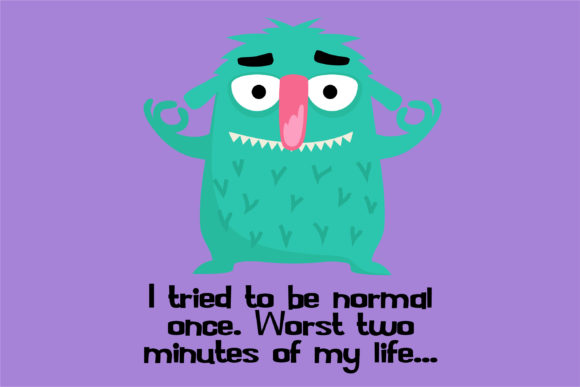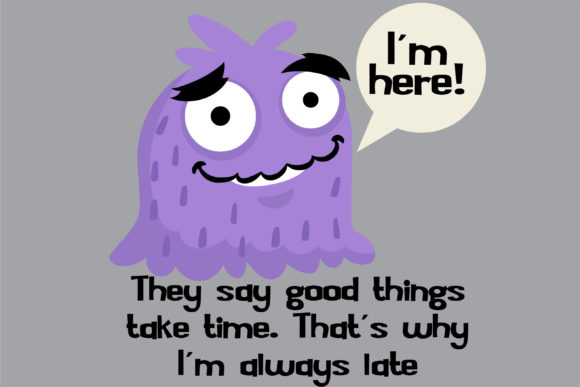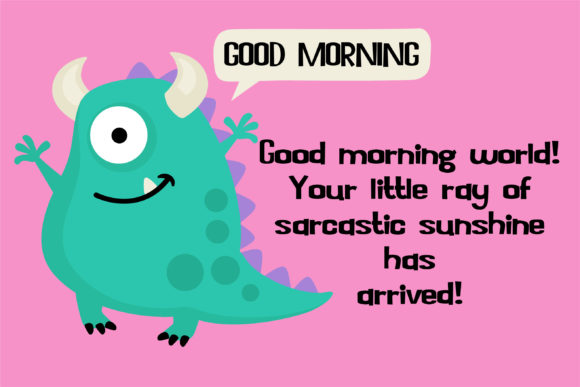
The Whimsical World of Bobotie Font: A Designer’s Delight
I’ll never forget the time I was working on a children’s book project, and my client asked me to create a logo that was “fun, playful, and eye-catching.” I scoured the internet for the perfect font, trying out various sans-serif options, but none seemed quite right. That was until I stumbled upon the Bobotie font. Its whimsical and retro charm instantly won me over, and I knew I had found the perfect fit for the project.
A Personal Review of Bobotie Font
So, what makes Bobotie font so special? Let’s dive into the good stuff! 😊
• ✨ Unique and playful design: Bobotie font has a distinct, retro flair that’s perfect for creating eye-catching logos, branding, and quotes.
• ✅ Highly versatile: This font works beautifully for children-themed designs, especially when paired with bright colors.
• 👍 Easy to read: Despite its playful nature, Bobotie font remains clear and legible, even at smaller sizes.
While Bobotie font is an excellent choice for many projects, there are a few things to keep in mind:
• ⚠️ Limited use for formal projects: Due to its playful nature, Bobotie font might not be the best fit for more formal or professional projects.
• 🤔 Glyph support: Some users have reported limited support for certain glyphs or special characters.
4. Experiment with OpenType features, such as stylistic alternates, to add more flair to your design.
4. Explore the font’s glyphs and OpenType features, such as ligatures and stylistic sets, to add more depth to your design.
The Story Behind Bobotie Font
According to the font’s creators, Bobotie font was inspired by the traditional South African dish, Bobotie, which is known for its rich flavors and eclectic mix of ingredients. The font’s designers aimed to capture the same playful, eclectic spirit in their typeface, making it perfect for creative projects that require a dash of whimsy.
Font Name Bobotie Font
Author Illustration Ink
What is the best use for Bobotie font? Bobotie font is perfect for children’s themed designs, logos, branding, and quotes that require a playful, whimsical touch.
Is Bobotie font suitable for formal projects? While Bobotie font is an excellent choice for many projects, it might not be the best fit for more formal or professional projects due to its playful nature.
Does Bobotie font support OpenType features? Yes, Bobotie font supports OpenType features, including stylistic alternates, ligatures, and more.